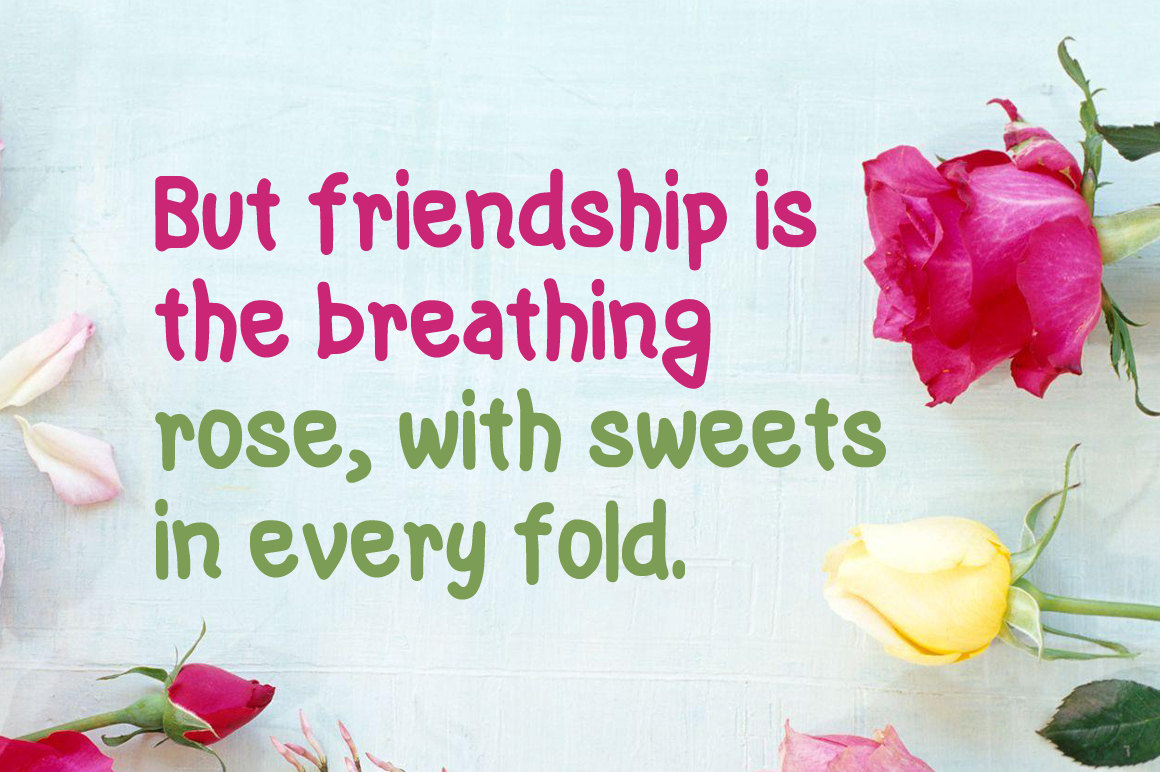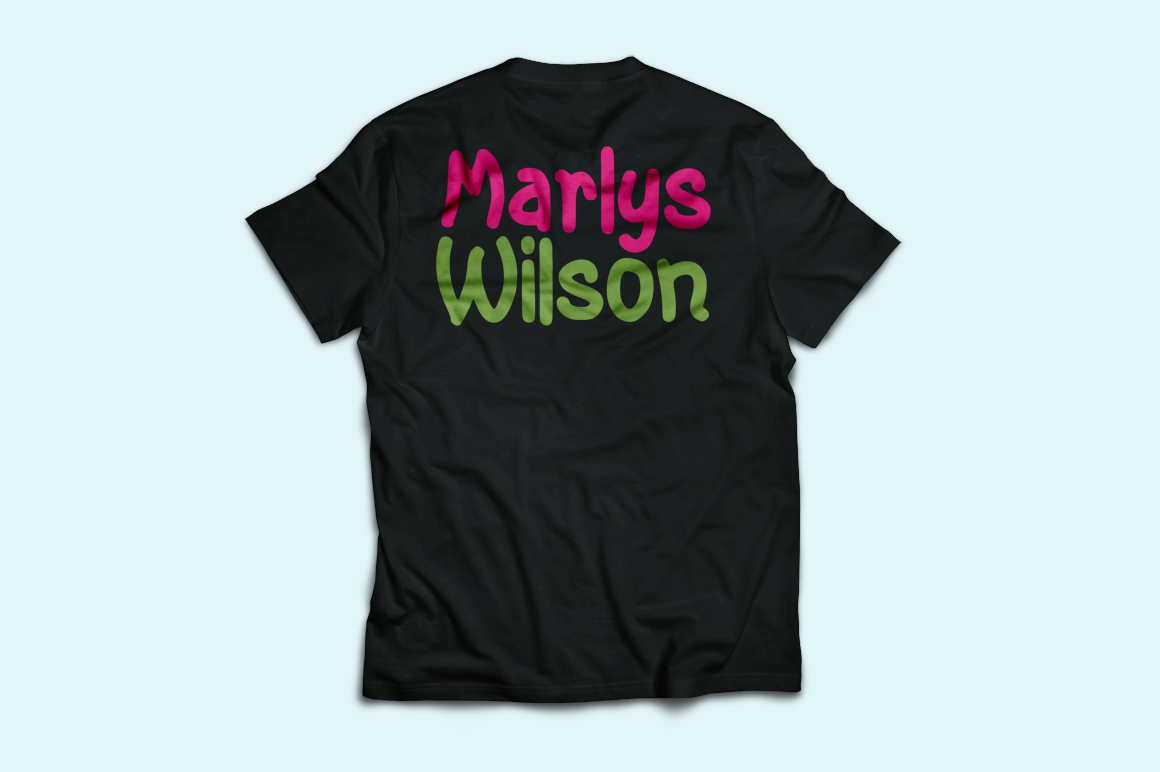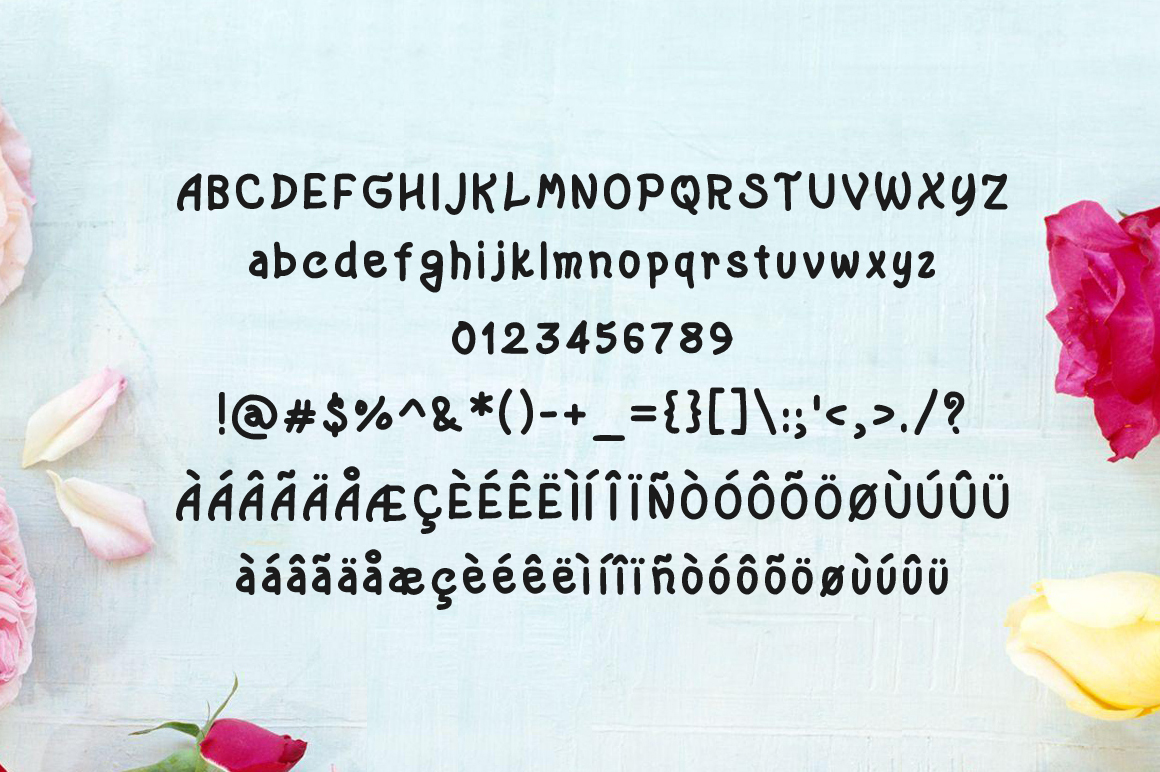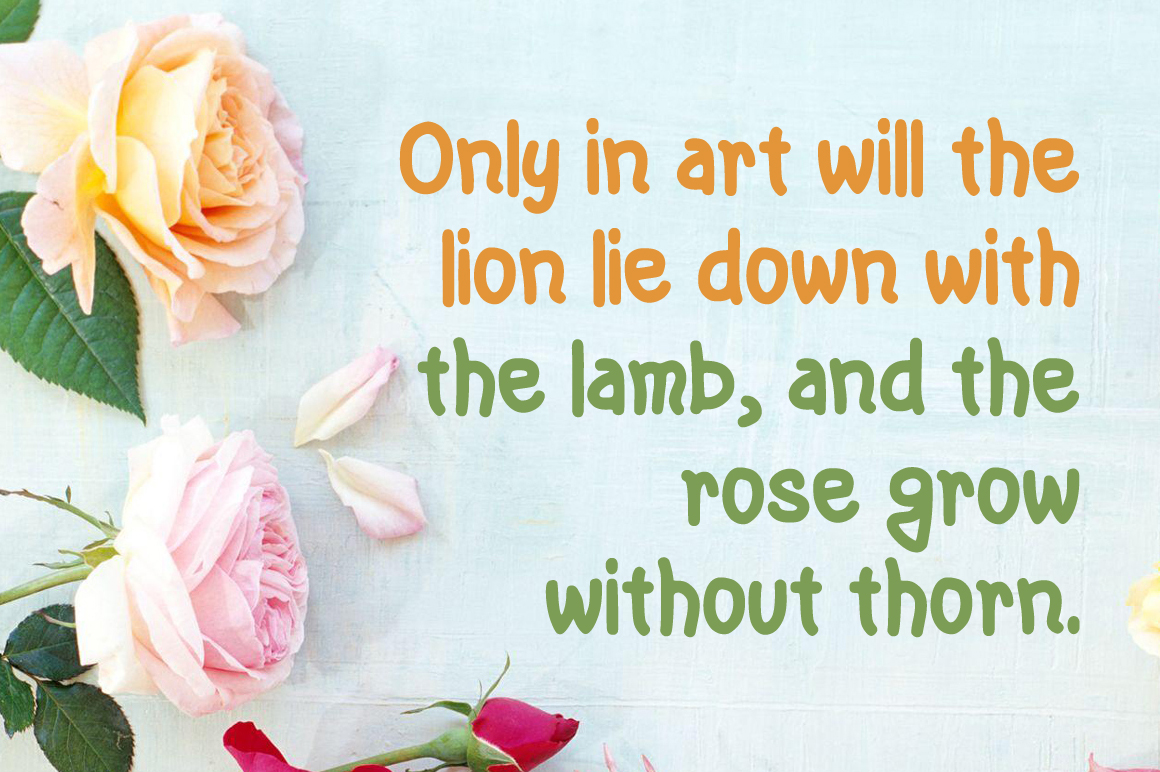
Introduction to Marlys Wilson Font
Marlys Wilson is a simple, clean handwritten font.
Key Features of Marlys Wilson Font
Why Choose Marlys Wilson Font?
Marlys Wilson Font offers exceptional quality and versatility, making it a valuable addition to your design toolkit. Whether you’re creating for personal projects or commercial use, Marlys Wilson Font delivers professional results.